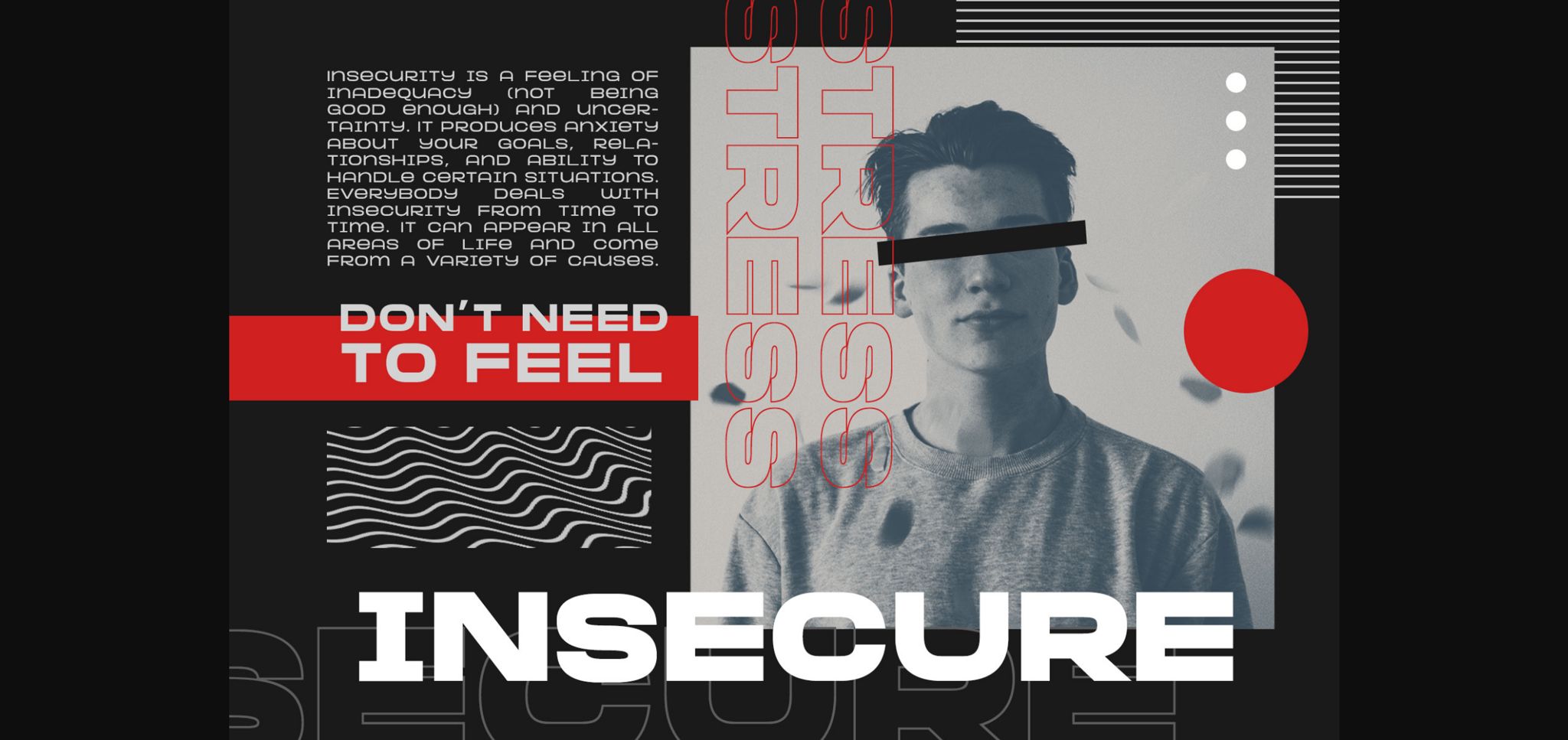
About Mortend Font
Mortend is a bold and futuristic sans serif font. Masterfully designed to become a true favorite, this font has the potential to bring each of your creative ideas to the highest level!